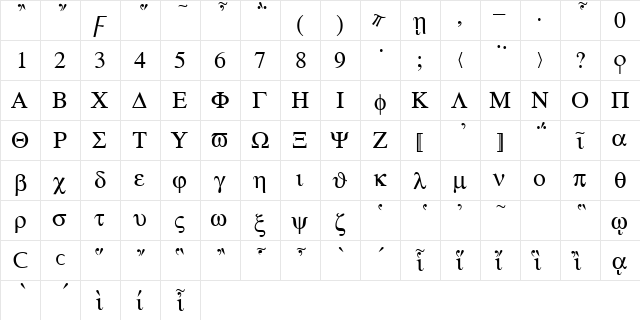
Atene Normal
Design Context for Atene Typeface
Atene offers clean, dependable letterforms without strong stylistic allegiance, making it a practical choice for designers who need flexibility.
Pro Tip: Use Atene in both headline and body roles to test its range before committing to a single application.